What Is the Smallest Font?
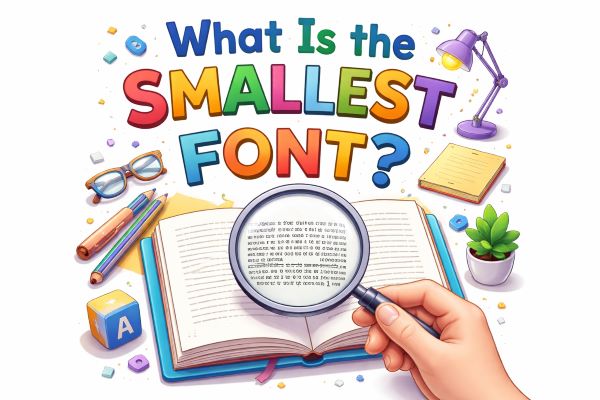
What is the smallest font? It depends on whether you mean the smallest readable font, the smallest font size allowed, or the physically smallest text ever created. This guide covers all three.
The question of what the smallest font is does not have a single answer, because it depends on what you are actually asking. Are you looking for the smallest font size you can use in a Word document? The smallest readable typeface for printed text? Or are you curious about the scientific and design extremes of how small text can physically get? People search this question for different reasons, and this guide covers all of them so you walk away with a genuinely useful answer.
The Smallest Font Size in Common Software
In most word processors and design applications, you can technically set a font as small as 1 point. In Microsoft Word, Google Docs, and Adobe applications, you can manually type any point size into the font size field, and the software will render it.
One point is 1/72 of an inch. At 1pt, most fonts are completely illegible to the naked eye. The letters exist on the page or screen but are too small to read without magnification.
In practice, the smallest font size most software treats as a practical minimum is around 6pt, which is sometimes used for legal disclaimers, footnotes in dense publications, and fine print on packaging. Even at 6pt, readability depends heavily on the font choice and whether the text is printed or displayed on screen.
The Smallest Readable Font Size
The answer here depends on the medium.
For print, the general consensus among typographers is that 6pt to 8pt is the floor for readable body text under normal viewing conditions. Below 6pt, most people cannot read text without a magnifying glass regardless of how good their vision is.
For screen, the smallest readable size is slightly larger because screens have lower effective resolution than print at typical viewing distances. Most accessibility guidelines, including WCAG (Web Content Accessibility Guidelines), recommend a minimum of 12px for body text on screen, which is roughly equivalent to 9pt at standard screen resolution. For secondary text like captions or labels, the minimum recommended size is typically 10px to 11px.
For legally required disclosures, there is no universal minimum in most jurisdictions, but many regulatory bodies and industry standards suggest 6pt as the practical lower boundary for consumer-facing text. Some industries, like pharmaceuticals and food labeling, have specific minimum size requirements set by law.
Which Fonts Look Smallest at the Same Point Size?
Not all fonts appear the same size at identical point sizes. This comes down to typographic characteristics, particularly x-height (the height of lowercase letters) and character width.
Fonts that appear smaller at the same point size:
- Times New Roman: A relatively narrow serif that fits more characters per line than many comparable fonts
- Garamond: One of the most space-efficient fonts at small sizes, widely used in books where page count matters
- Century Gothic: Has a large x-height but narrow letterforms that read compact on the page
- Bookman Old Style: Efficient at small sizes with clear letterforms
Fonts that appear larger at the same point size:
- Arial: Wider letterforms that take up more horizontal space
- Verdana: Designed for screen legibility with very generous spacing and x-height
- Georgia: Open letterforms that feel larger than equivalent serif alternatives
If you want to fit more text in less space, Garamond or a similarly compact serif at 10pt will give you more words per page than Times New Roman at the same size. Publishers and book designers use this regularly to control page count without changing the nominal font size.
The Physically Smallest Text Ever Created
This is where things get genuinely interesting. The smallest text ever created is not a font in any usable sense. It is the result of scientific research into nanoscale fabrication.
In 2009, IBM researchers created what was at the time recognized as the world’s smallest writing by arranging carbon monoxide molecules on a copper surface using a scanning tunneling microscope. The letters were approximately one nanometer tall, roughly 10 atoms high. This is not visible to the naked eye or even a standard optical microscope.
In terms of actual typography, researchers at Stanford University have created text using electron beam lithography at sizes measured in micrometers. These are scientific demonstrations, not fonts you can install or use.
The world record for the smallest printed book, according to the Guinness World Records, belongs to a book called “Teeny Ted from Turnip Town,” etched onto a silicon chip using an ion beam. Its pages are microscopic and require a scanning electron microscope to read.
The Smallest Practical Font for Different Use Cases
Here is a quick reference for the smallest font sizes that actually work in real-world contexts:
- Body text in print: 10pt minimum, 11pt to 12pt preferred
- Footnotes and captions in print: 8pt to 9pt
- Legal fine print: 6pt (technical minimum, not recommended for actual readability)
- Body text on screen: 14px to 16px for comfort, 12px minimum
- Mobile body text: 16px minimum for accessibility
- UI labels and secondary text: 11px to 12px
- Never use below: 6pt in print or 10px on screen if you want anyone to actually read it
The Short Answer
The smallest font size most software allows is 1pt, but that is not readable by anyone. The smallest practical font size for printed text is around 6pt for fine print and 10pt to 11pt for anything you actually want people to read. On screen, 12px is the minimum most accessibility guidelines allow, with 16px recommended for body text. The physically smallest text ever created exists at the nanometer scale and requires scientific equipment to see. For everyday use, the smallest font that still does its job is around 6pt to 8pt in print and 12px on screen.